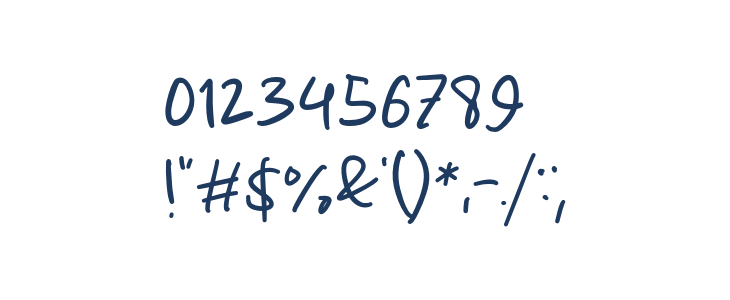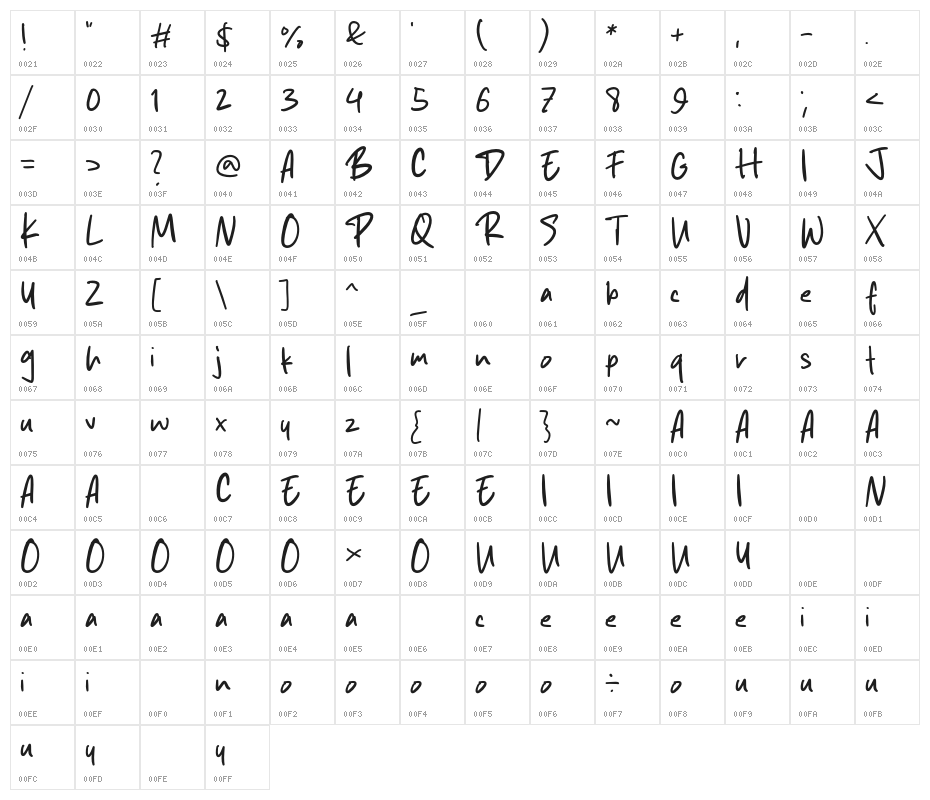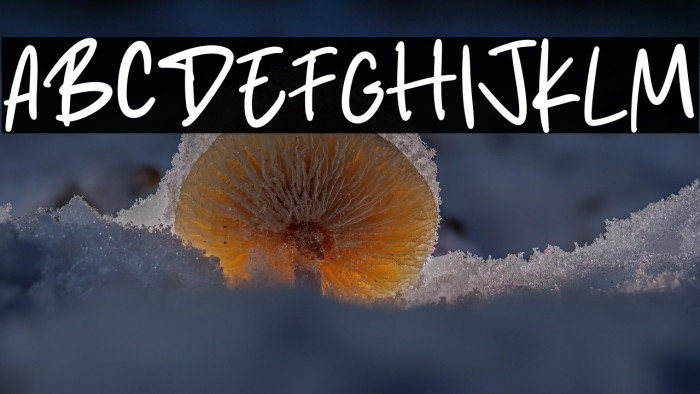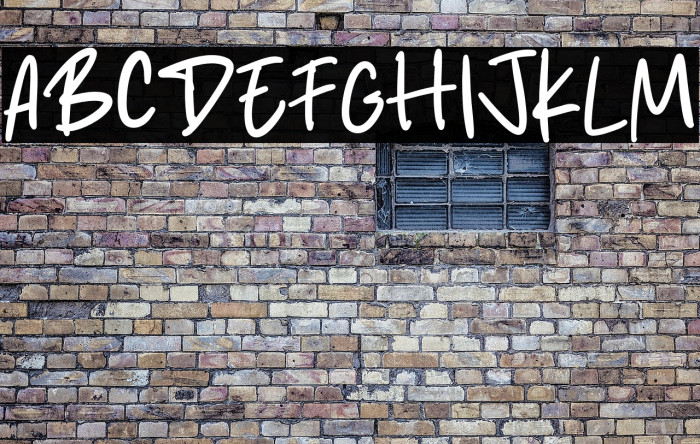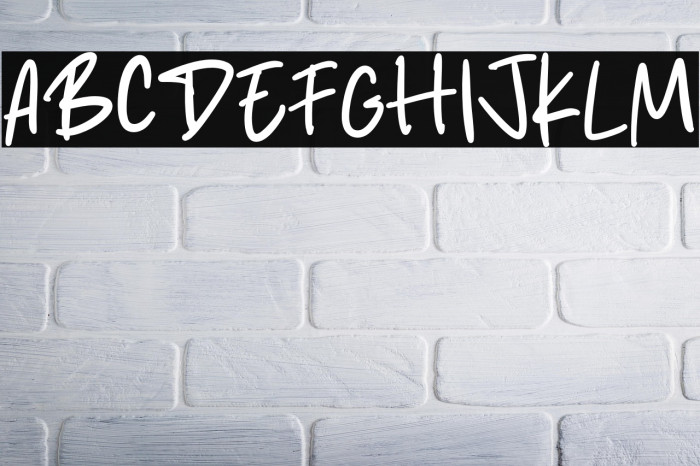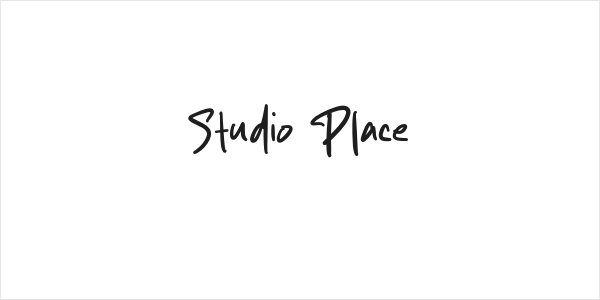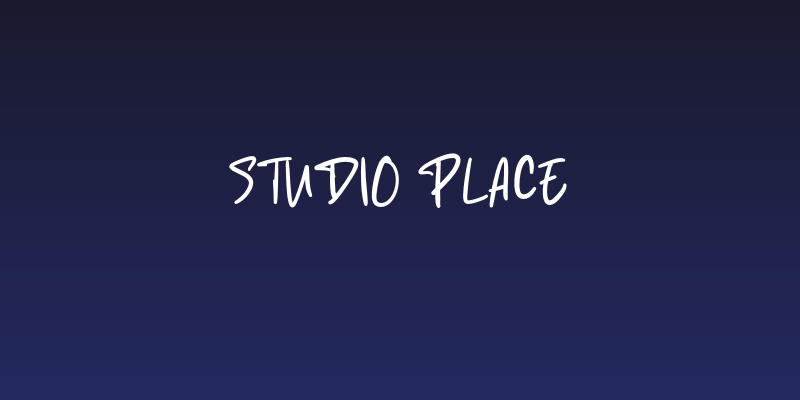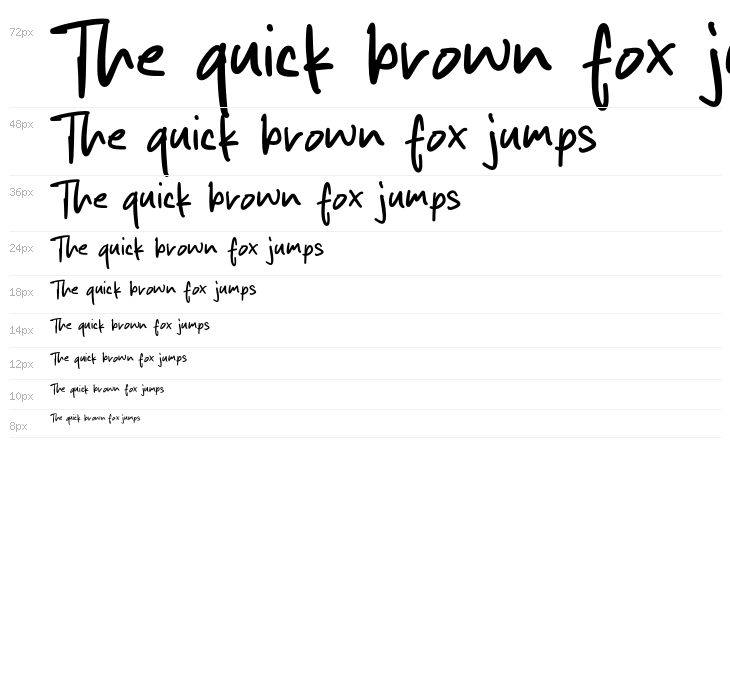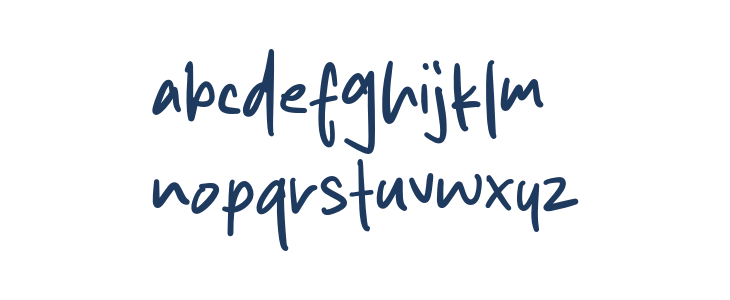
Studio Place Font
Studio Place Description
This font exudes a casual and playful handwritten style, characterized by its fluid and dynamic strokes. The letters are slightly slanted, giving it an informal and approachable feel. The uppercase and lowercase letters maintain a consistent flow, with rounded edges and varying stroke widths that add to its lively appearance. The numbers and special characters follow the same handwritten aesthetic, ensuring a cohesive look across all characters. This font is perfect for projects that require a personal touch, such as greeting cards, invitations, or creative branding materials.
| Overall Style | Casual |
| Use Case | Logos, Headlines, Creative projects |
| Proposed Projects | Ideal for greeting cards, invitations, personal branding, and creative projects. |